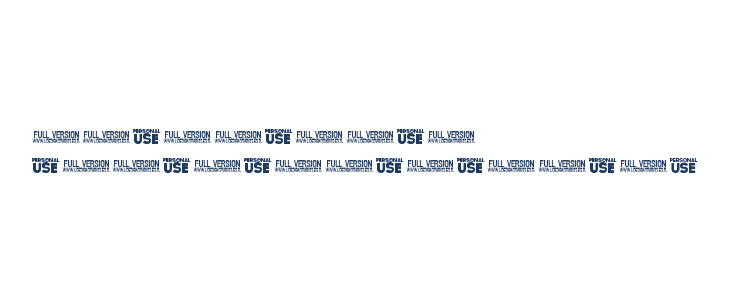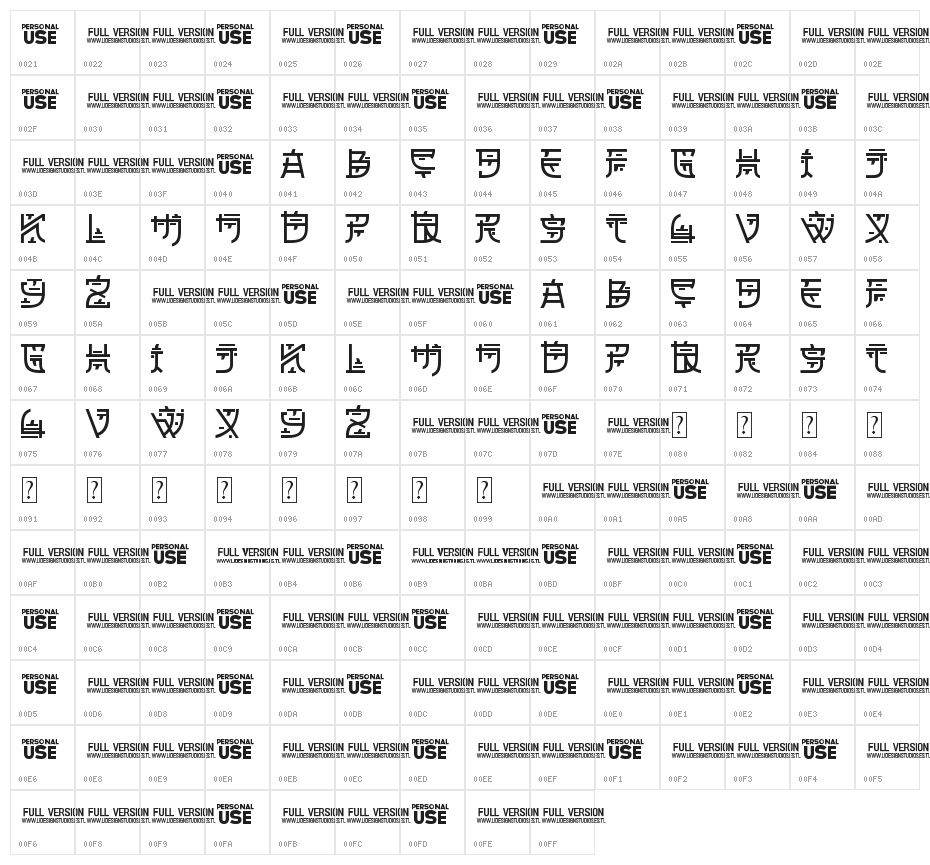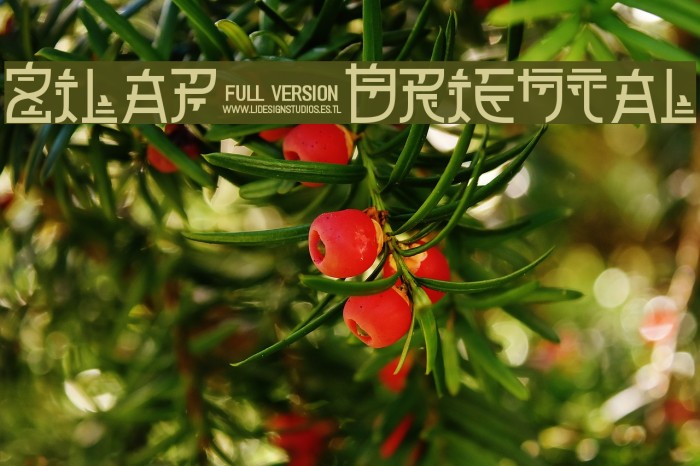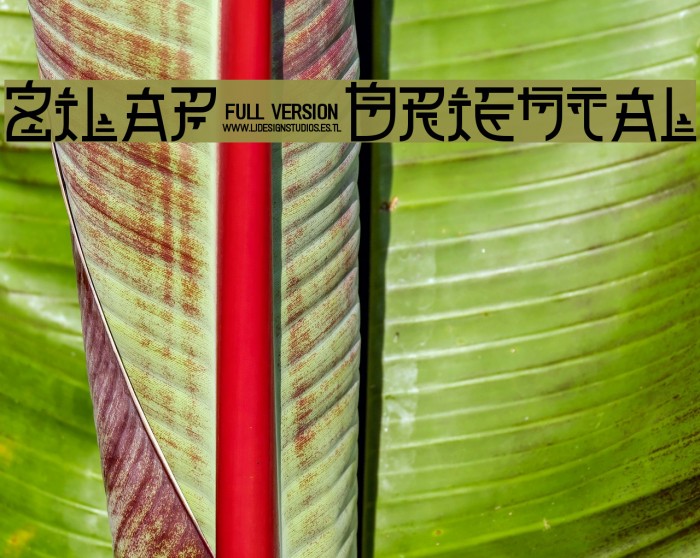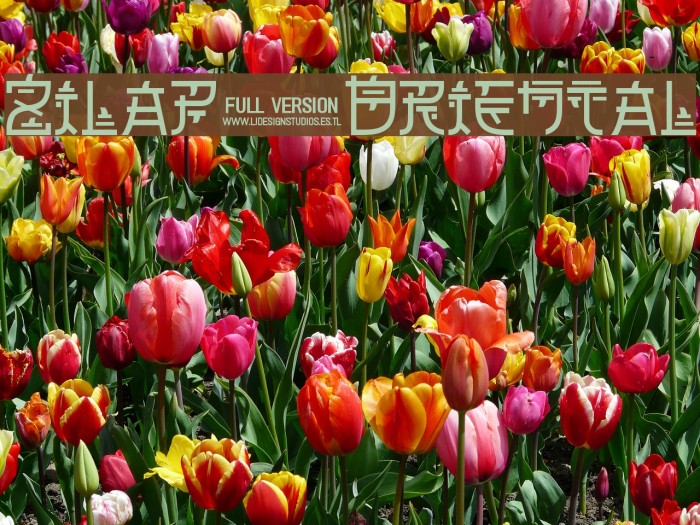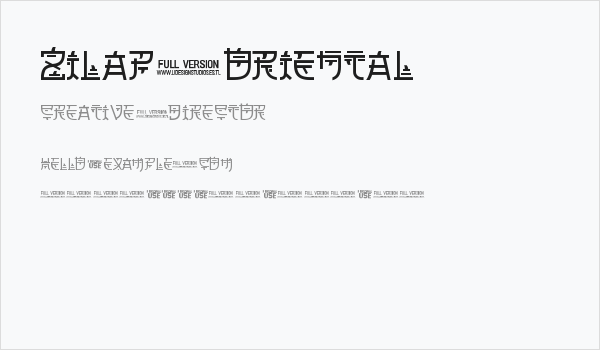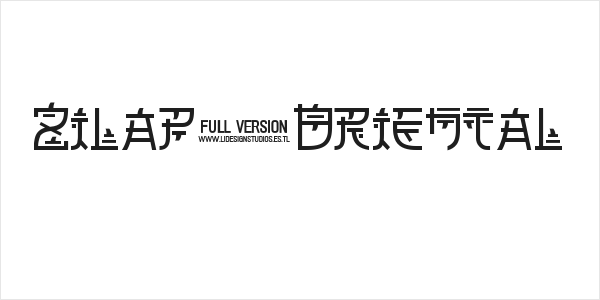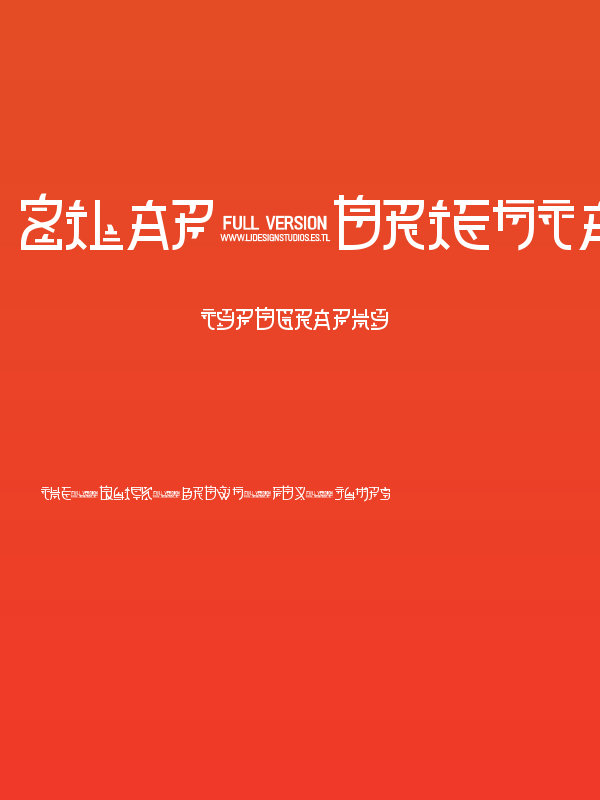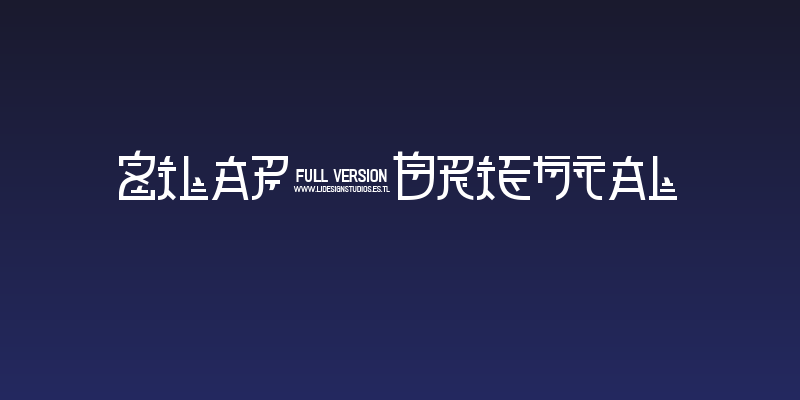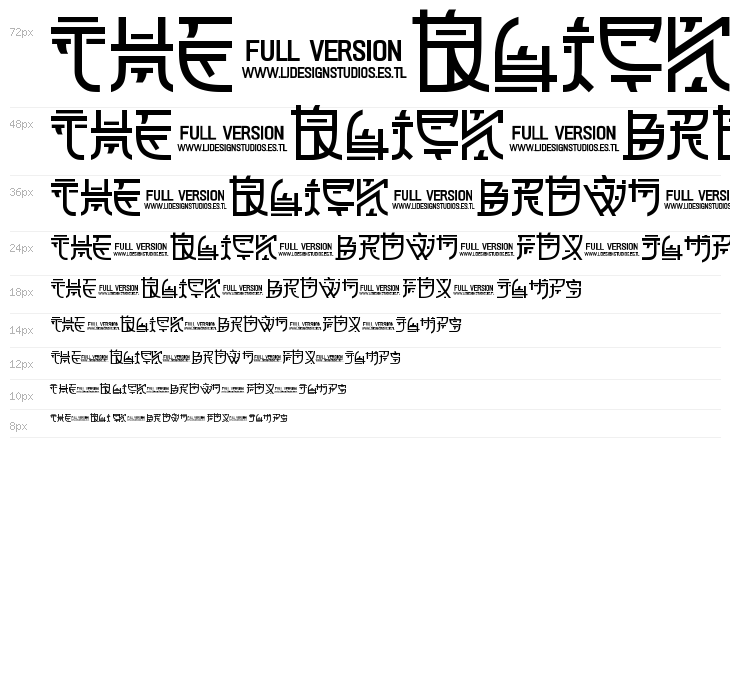
Zilap Oriental Font
Zilap Oriental Description
This font exhibits a unique and intricate design, drawing inspiration from oriental aesthetics. The characters are bold and feature geometric shapes with sharp angles and distinct curves, giving them a futuristic and decorative appearance. The uppercase and lowercase letters maintain a consistent style, with a strong emphasis on symmetry and balance. The numerals and special characters are crafted to match the overall theme, ensuring a cohesive look across all elements. This font stands out due to its artistic flair and cultural influences, making it ideal for projects that require a touch of exotic elegance.